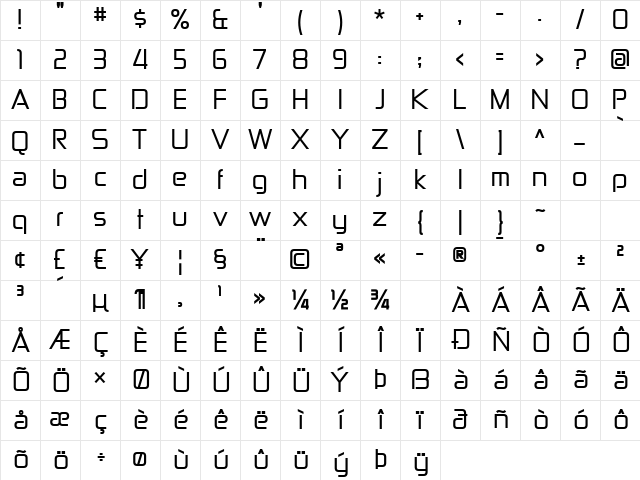
Zekton Regular Free Font
Zekton Regular
Design Context for Zekton
Zekton is a composed and adaptable typeface that performs quietly and consistently across a wide range of design contexts.